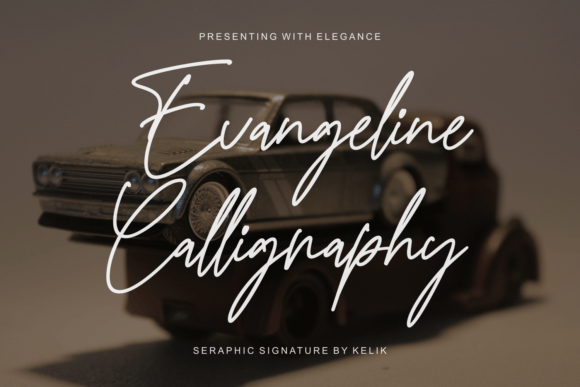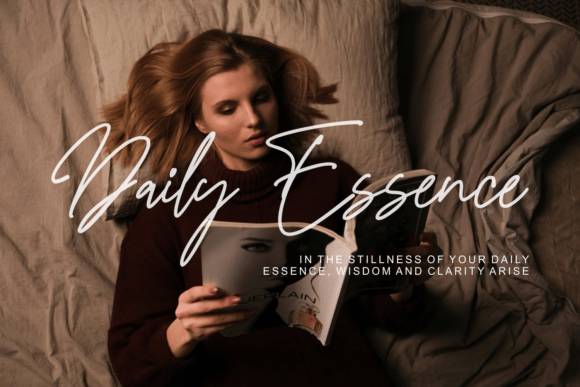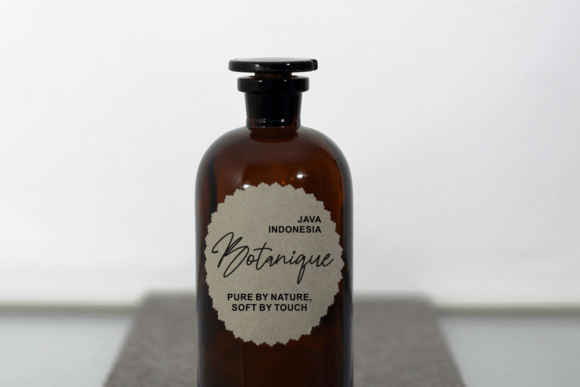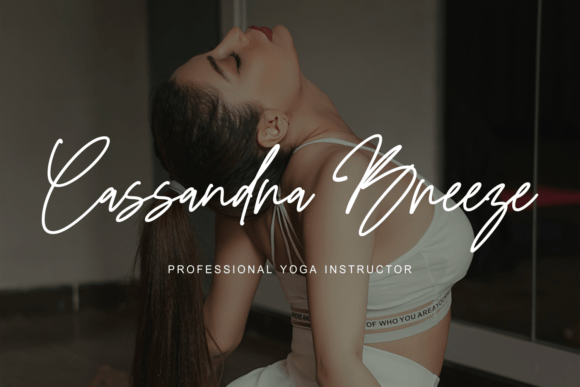
Evangeline Calligraphy Font
About the Evangeline Calligraphy Font
The wait is over! The incredible Evangeline Calligraphy Font is now available for your design toolkit. Evangeline Calligraphy is an elegant, handwritten script font designed to bring a touch of sophistication and romance to your projects. With its fluid strokes and graceful curves, this signature-style font is perfect for wedding invitations, branding, social media graphics, and more. Let your designs speak with elegance and charm.
Evangeline excels in applications requiring a touch of refined elegance, such as wedding stationery, luxury branding, or short-form quotes on social media. Its graceful curves also lend themselves well to packaging for high-end products or stylish logos. However, its decorative nature makes it unsuitable for body text or lengthy paragraphs; readability suffers at smaller sizes.
For optimal visual harmony, pair Evangeline with a clean sans-serif like Montserrat for a modern contrast, or a classic serif such as Garamond for a more traditional feel. A geometric sans-serif like Futura could also provide a striking juxtaposition. Avoid pairing it with other script fonts, as this can lead to visual clutter.
Evangeline’s overall personality is sophisticated and romantic, conveying a sense of timeless charm and high quality. Its delicate strokes and elegant curves create a feeling of understated luxury.
Evangeline Calligraphy Font Usage Examples
Evangeline Calligraphy Font Example